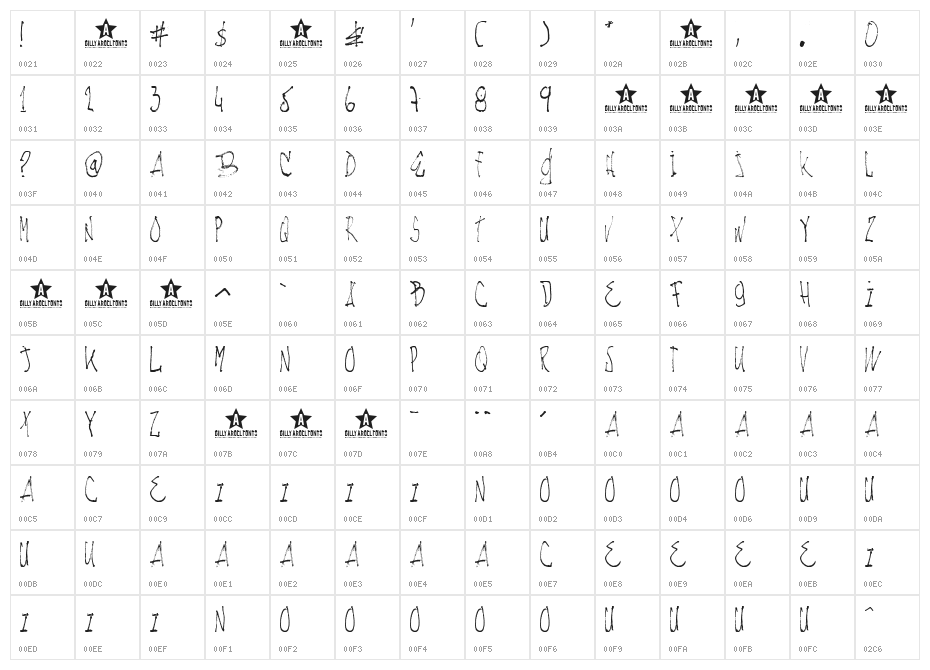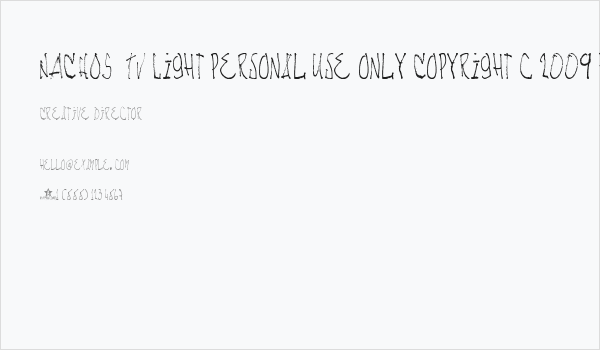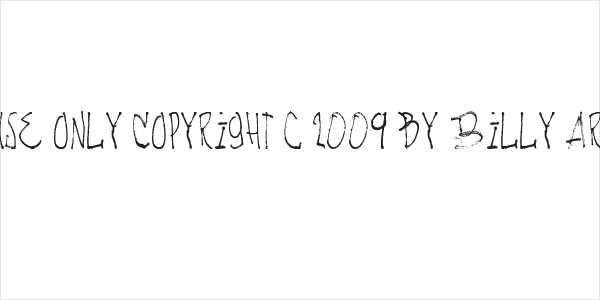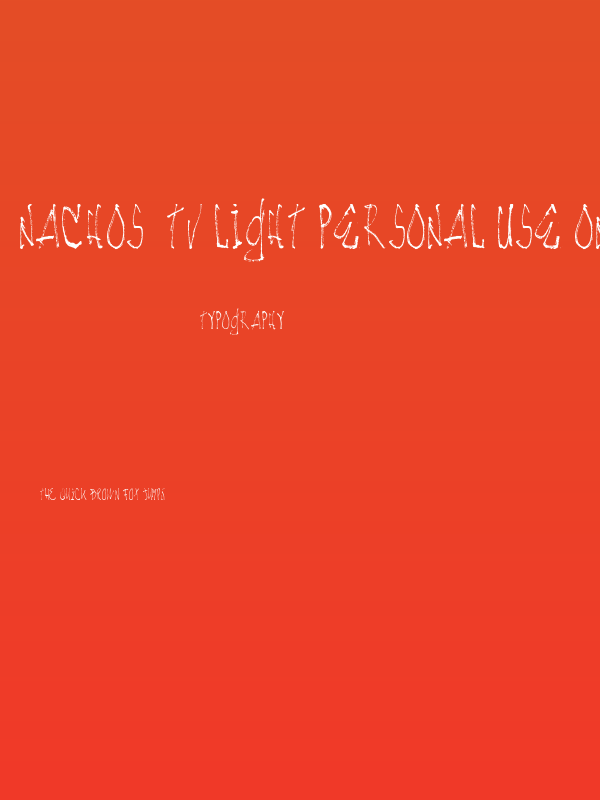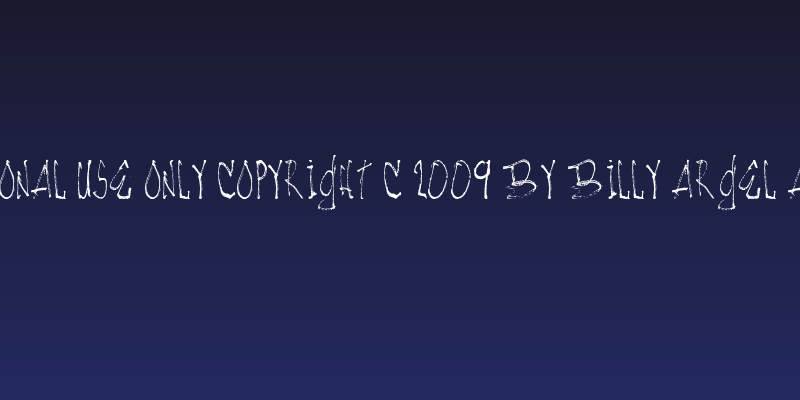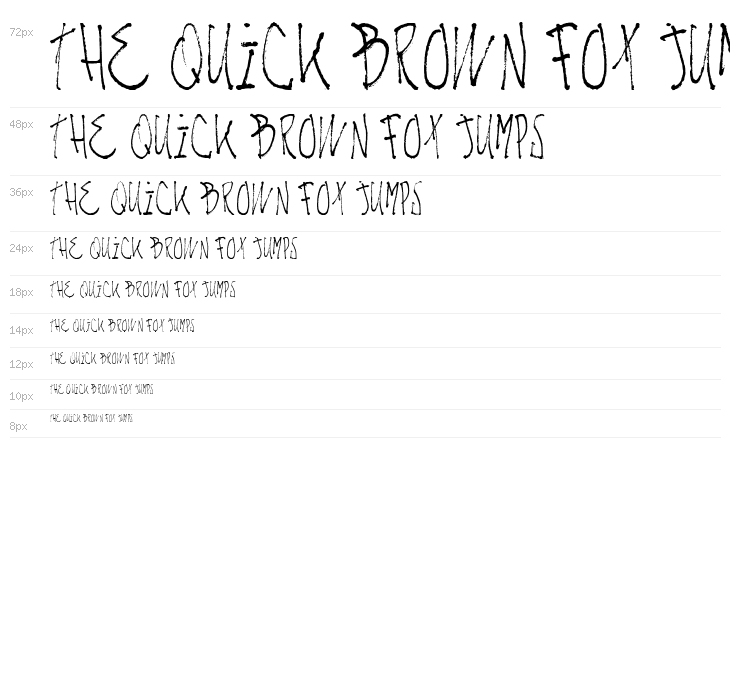
NACHOS TV Light personal use only Copyright c 2009 by Billy Argel All rights reserved Font
NACHOS TV Light personal use only Copyright c 2009 by Billy Argel All rights reserved Description
This font features a distinctive, hand-drawn style that exudes a casual and artistic vibe. The characters are uneven and slightly irregular, giving them a unique, organic feel. The strokes are rough and textured, reminiscent of brush strokes or ink pen sketches. This font captures a sense of spontaneity and creativity, making it ideal for projects that require a personal touch. The uppercase and lowercase letters maintain a consistent style, while the numerals and special characters complement the overall aesthetic. The font's playful and informal nature makes it suitable for creative and artistic applications.
| Overall Style | Artistic |
| Use Case | Logos, Posters, Invitations |
| Proposed Projects | Ideal for art projects, creative posters, personal invitations, and informal branding. |